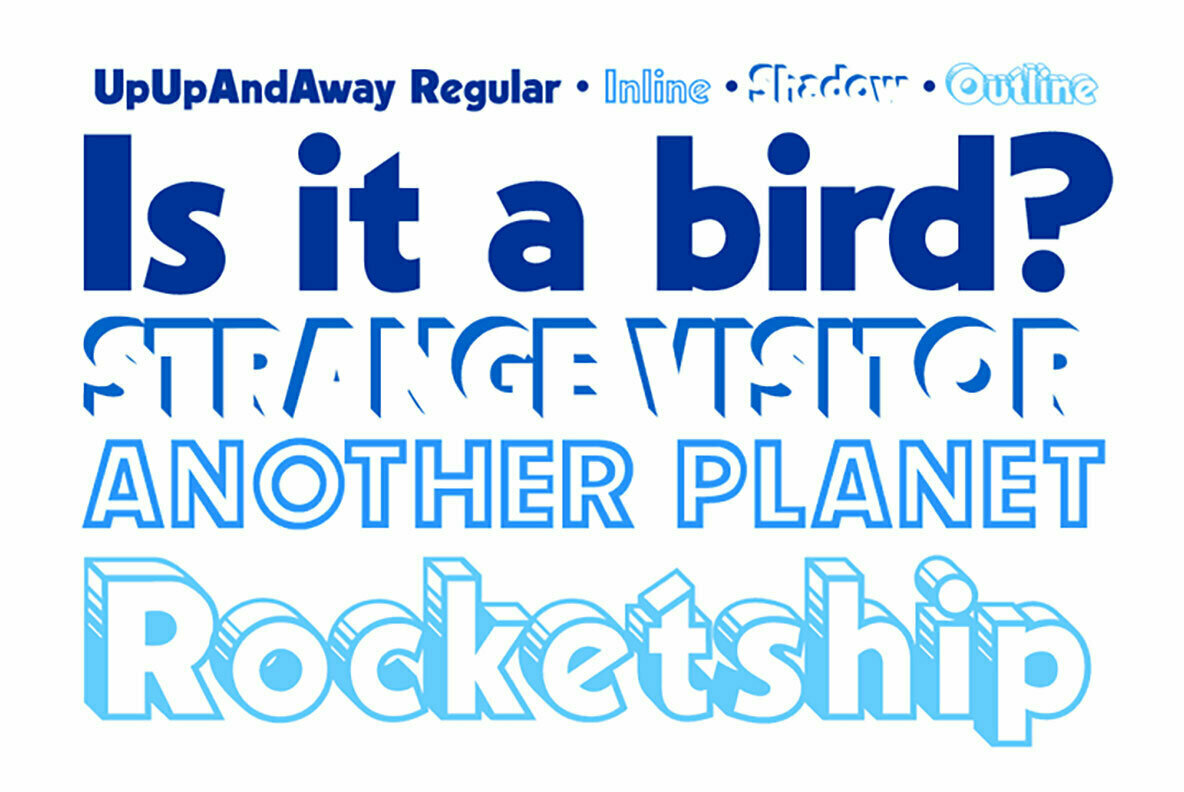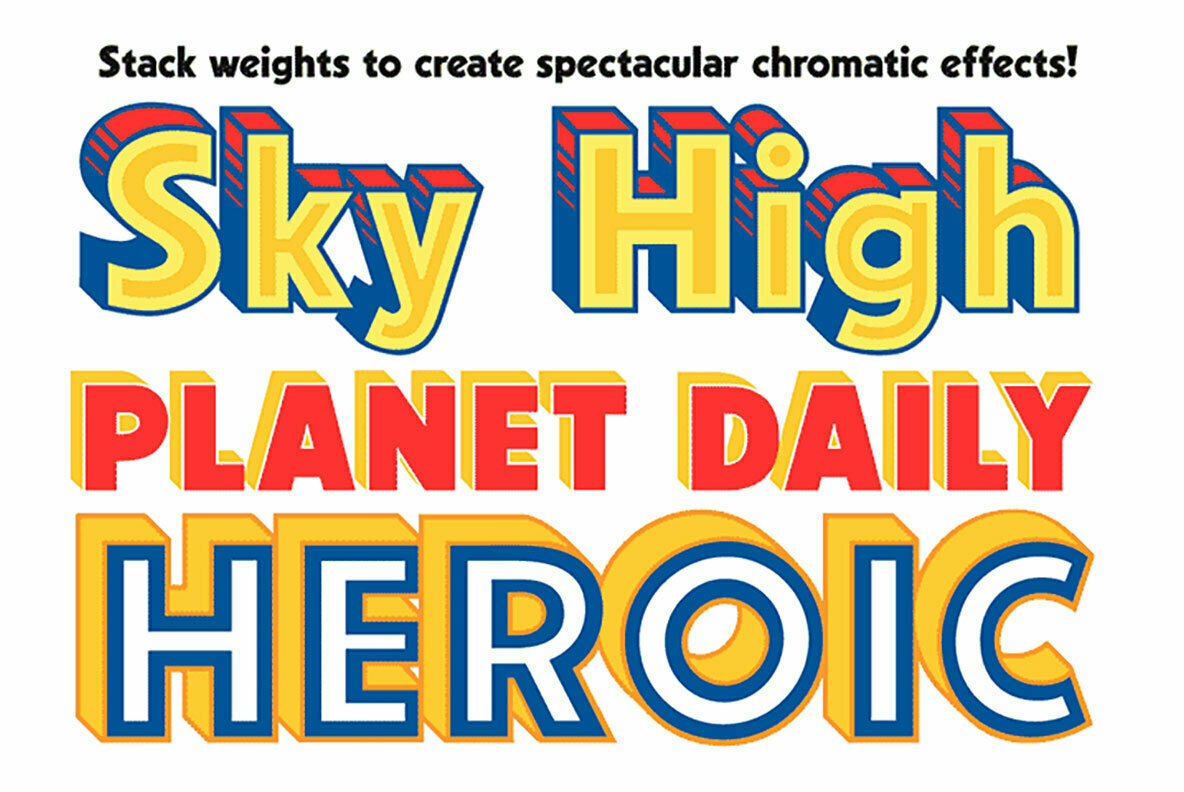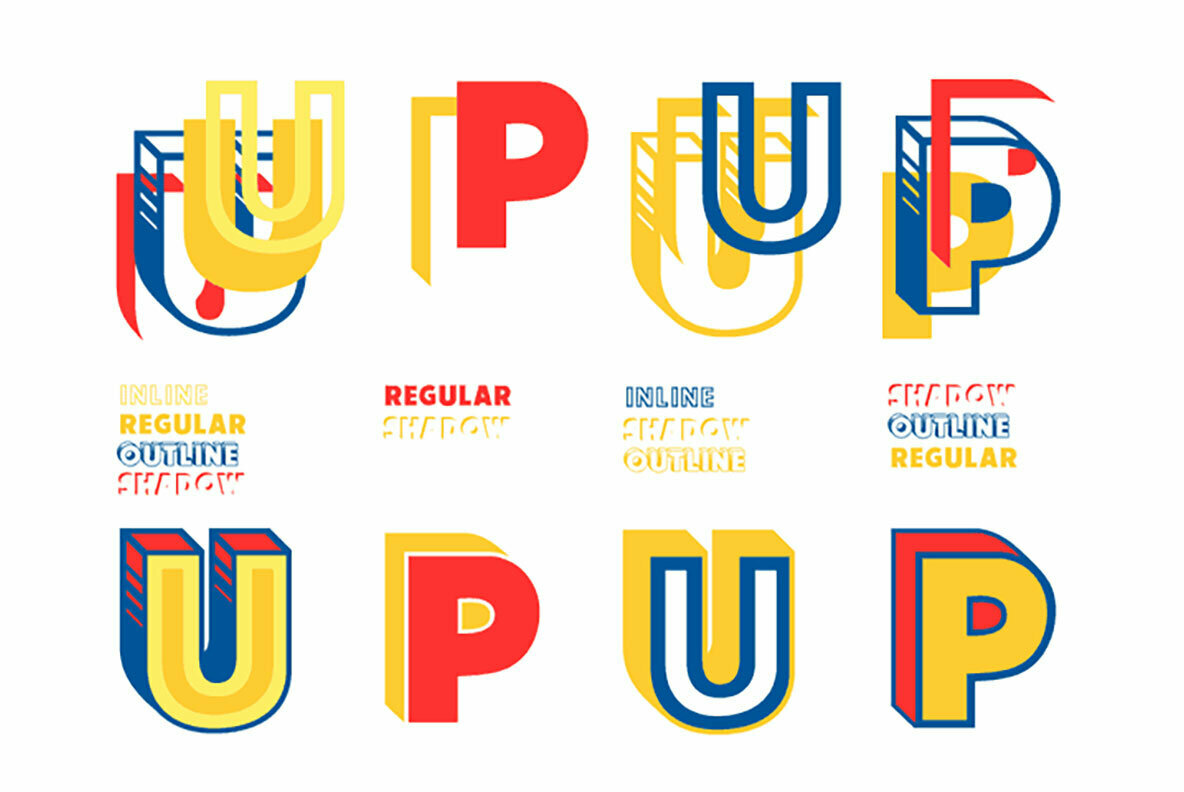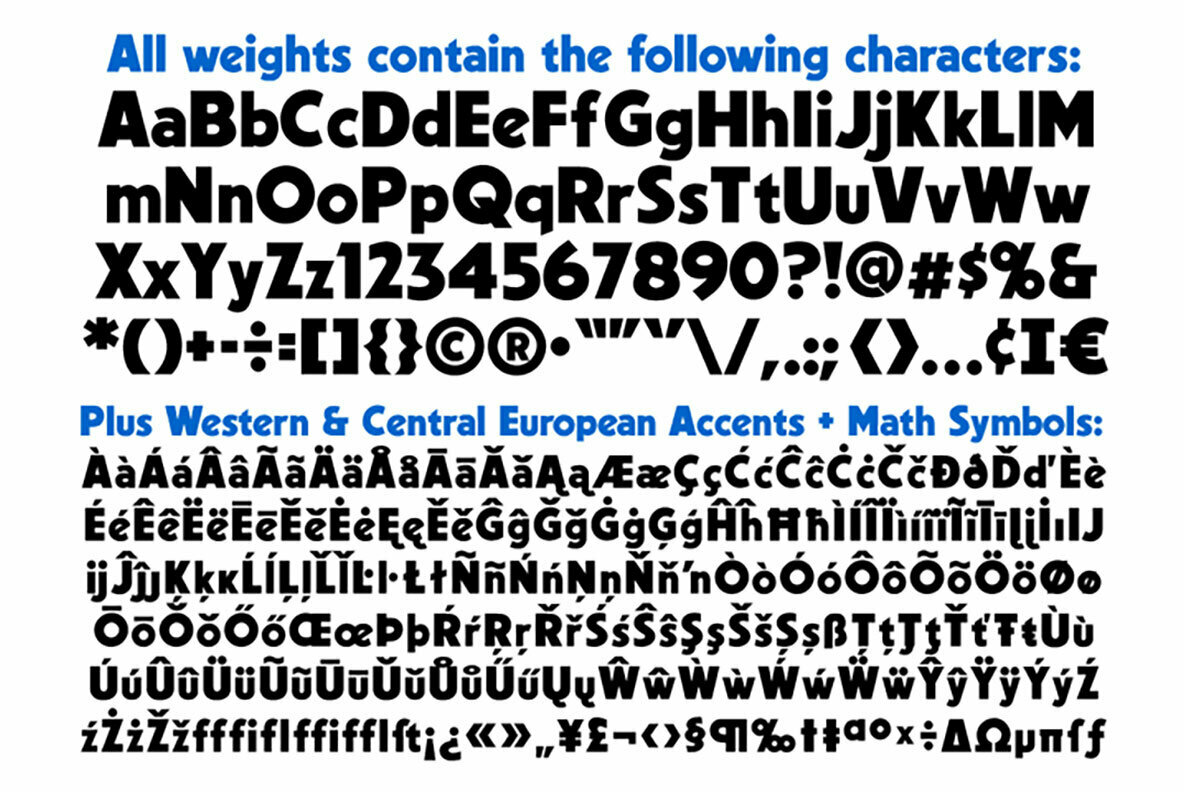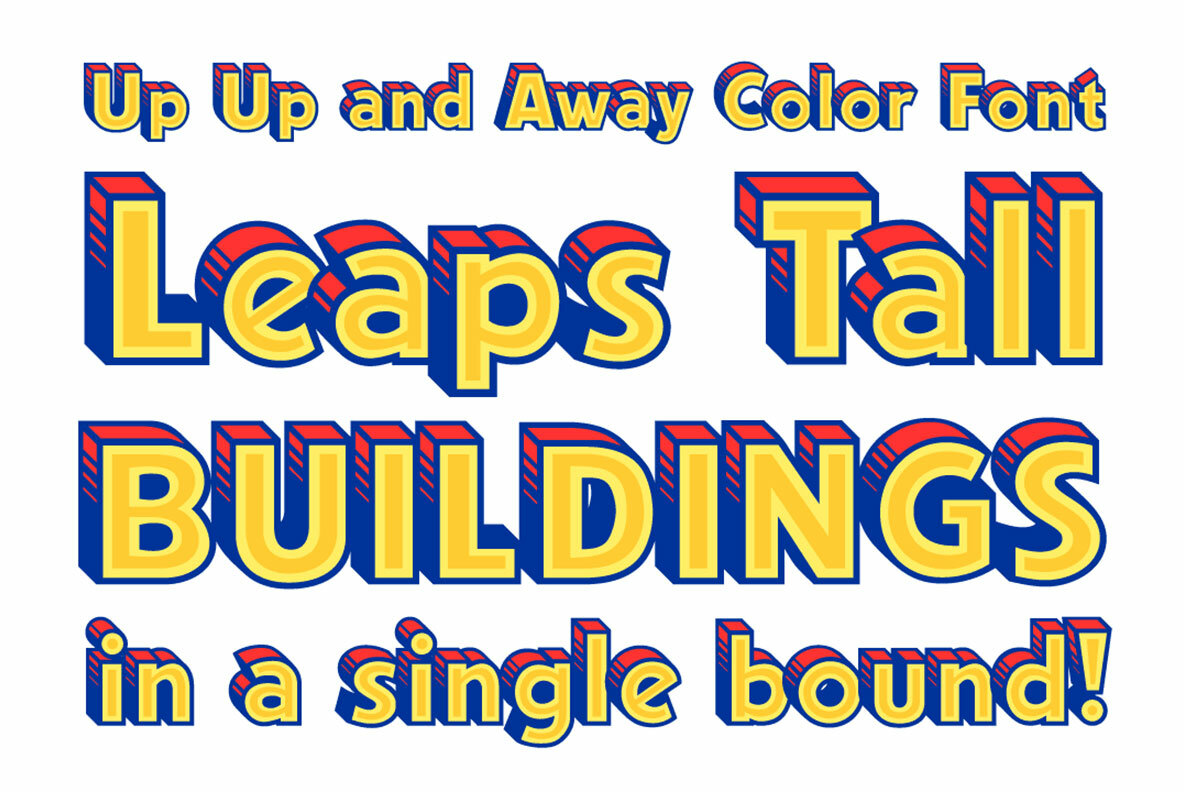
Up Up And Away Font
CC Up Up And Away Regular
CC Up Up And Away Color
CC Up Up And Away Inline
CC Up Up And Away Outline
CC Up Up And Away Popup
CC Up Up And Away Shadow
Is it a Bird? Is it a Plane? Is it a Rocket? No it’s another Super Font from those awfully nice chaps at Comicraft. Faster than a speeding Option 8, Up, Up and Away can see through ’O’s, jump Capital T in a single bound, and rescue caps dropped from the tallest ascenders.
There isn’t a more heroic or x-heighting font in our catalog and it’s as wholesome as truth, justice and mom’s apple pie. It will even help you make Mom a birthday card!!
Up Up And Away includes stackable Solid, Inline, Outline and Shadow weights to create dramatic chromatic effects, as well as a pre-assembled Color Font! All weights include Western & Central European language support.